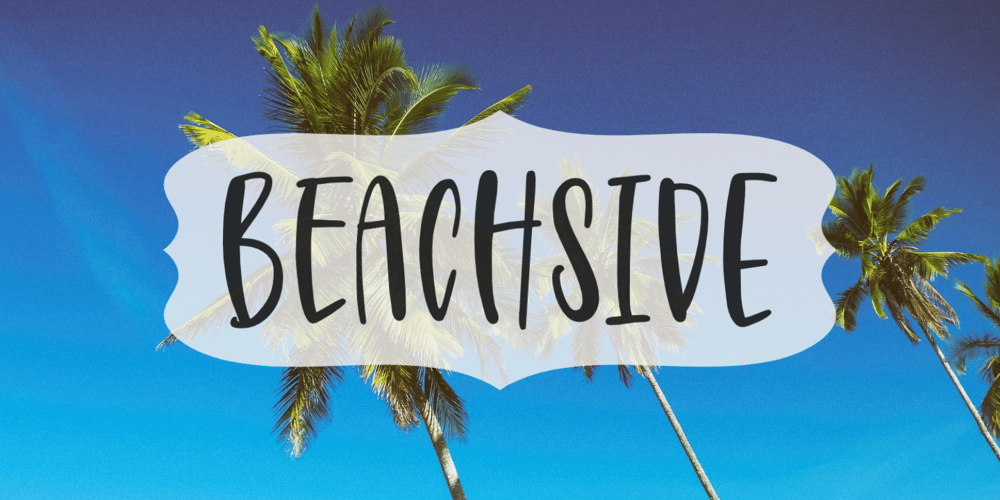
Beachside Font Family was designed by Aldy Sidik and published by Epiclinez. Beachside contains 1 styles and family package options. Beachside is a cool handwritten font. Clean and a little bit quirky, this font is suitable for all of your logos, branding, social media, and crafty DIY projects. This font beachside contains 194 glyphs, supporting 66 languages from English to Zulu.